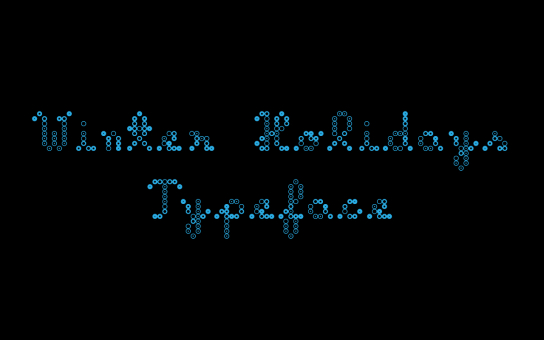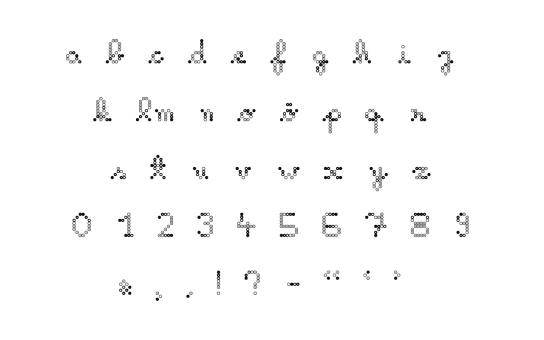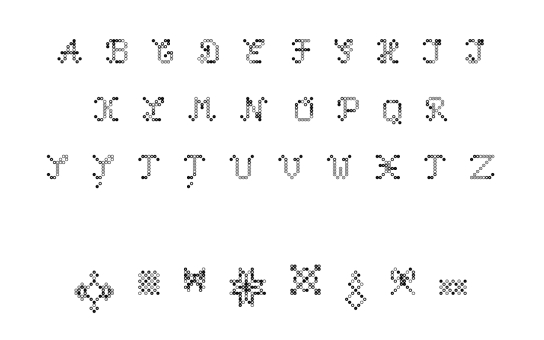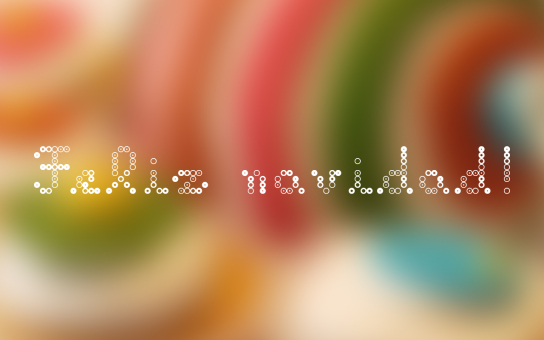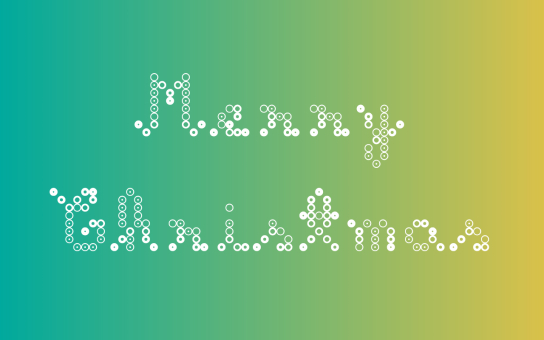
Winter Holidays
Due to the overly use of anesthetic typefaces for winter urban decorations for buildings and streets, I created a new font based on concentric circles that uses spot lights and handwritten letters.